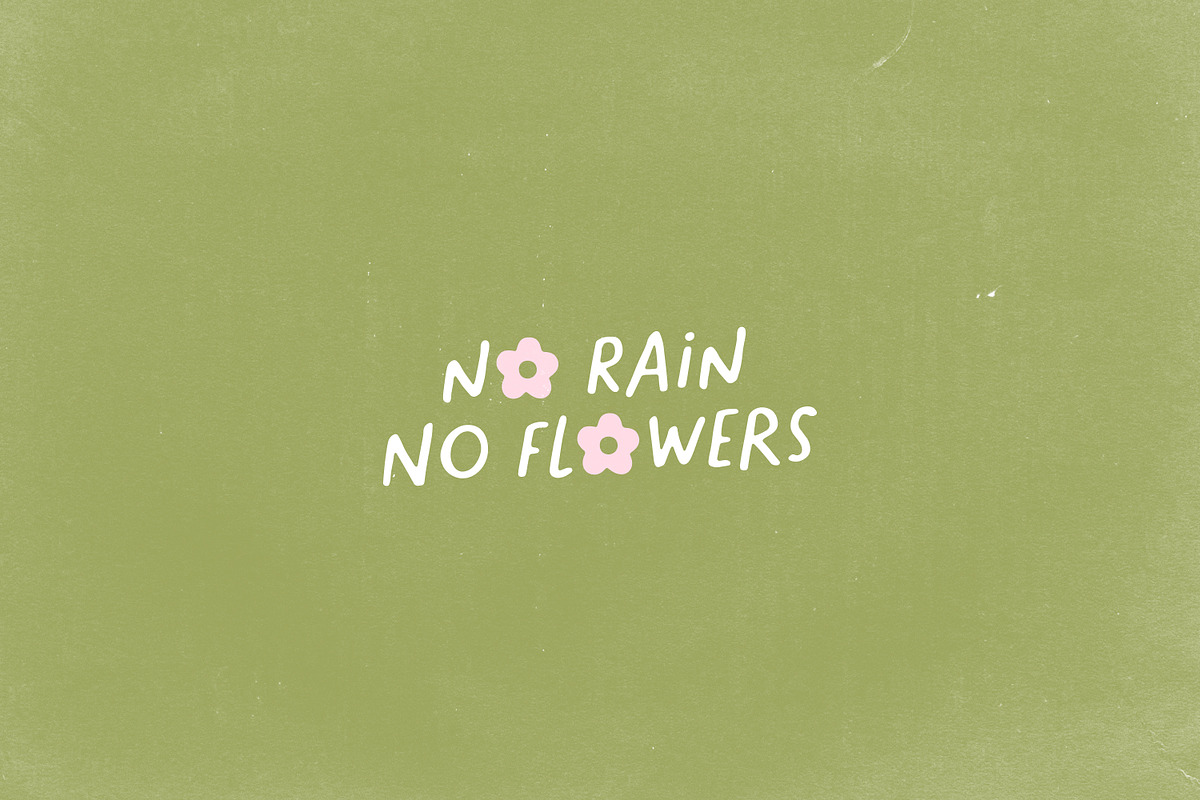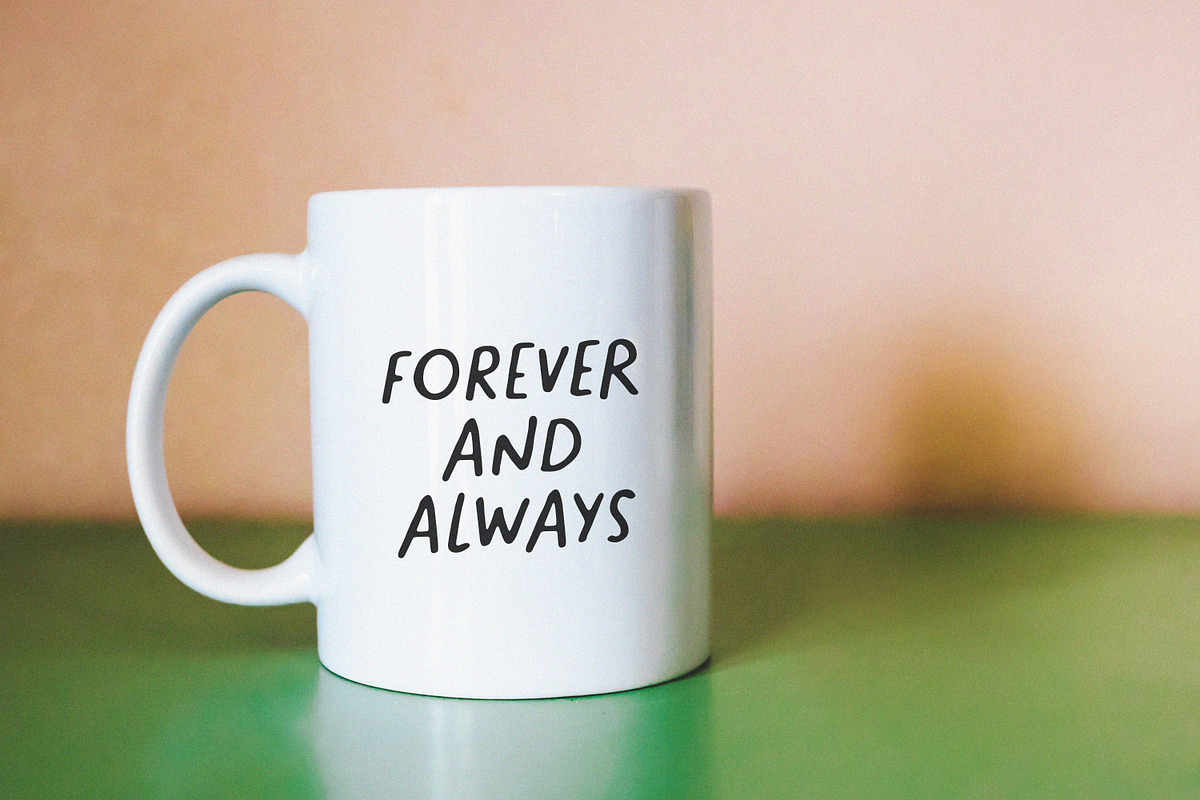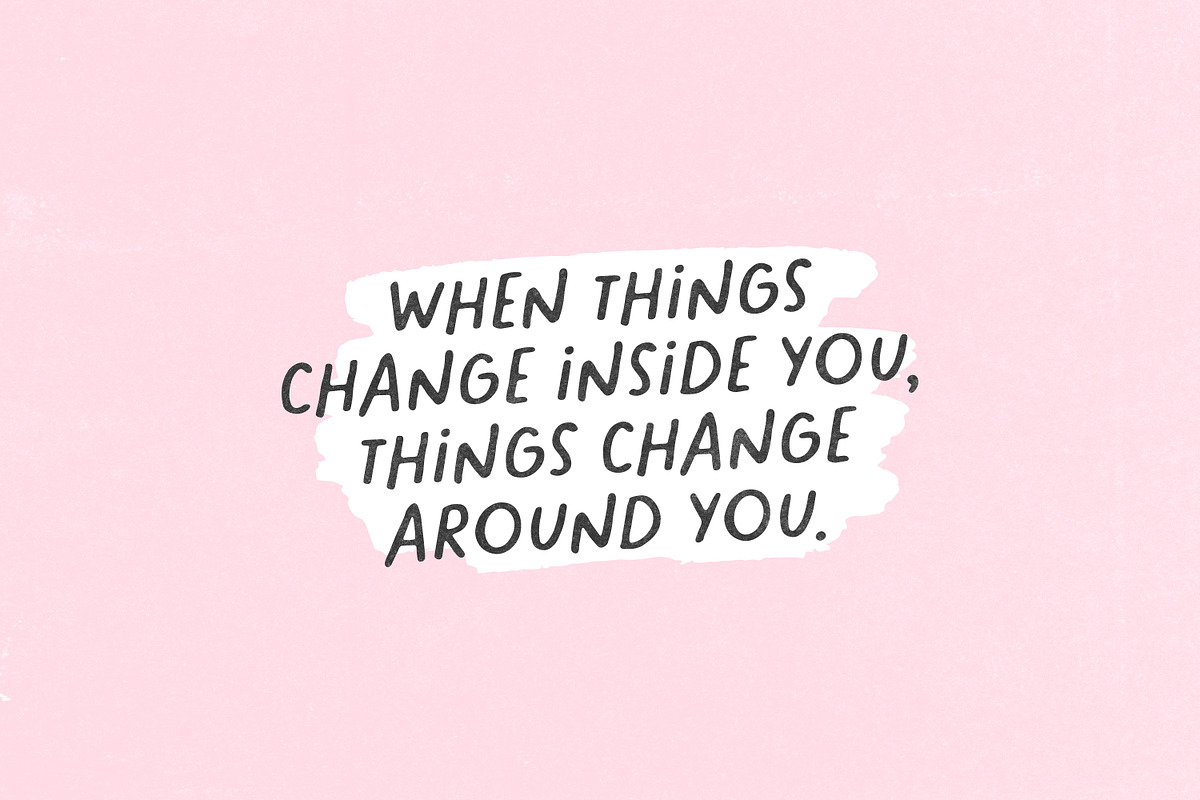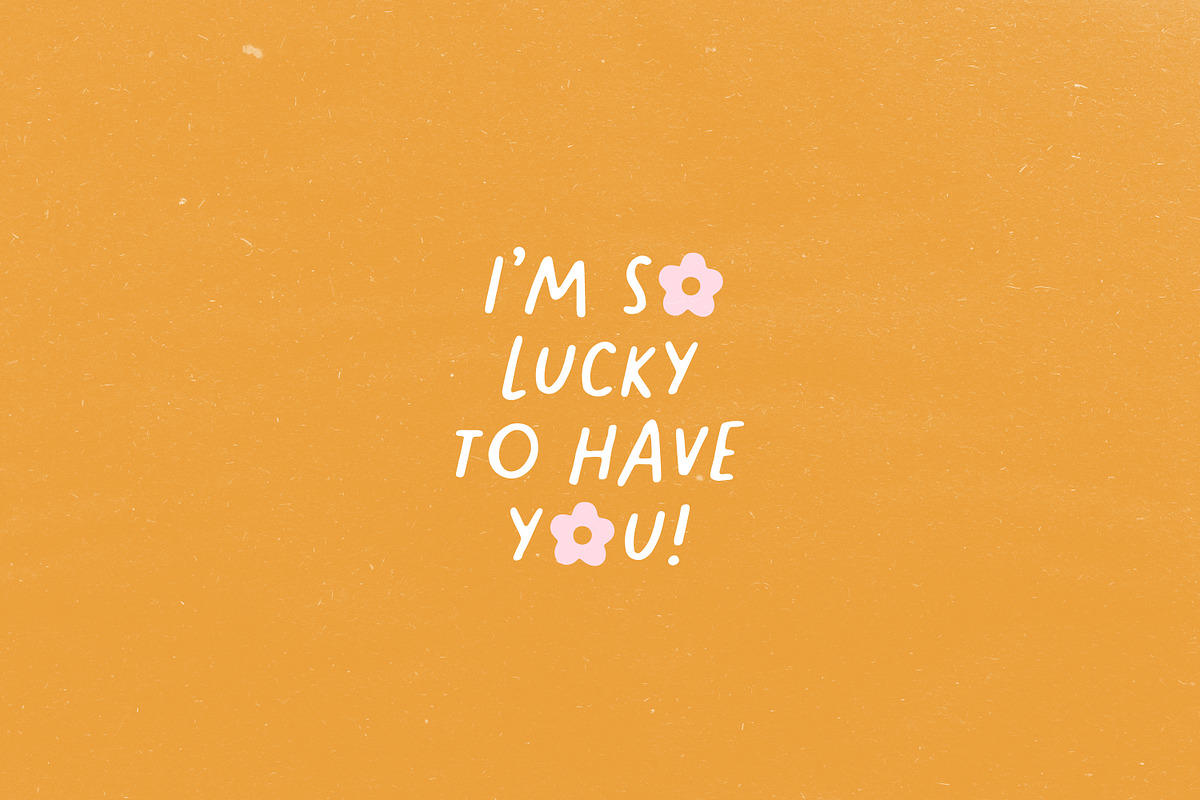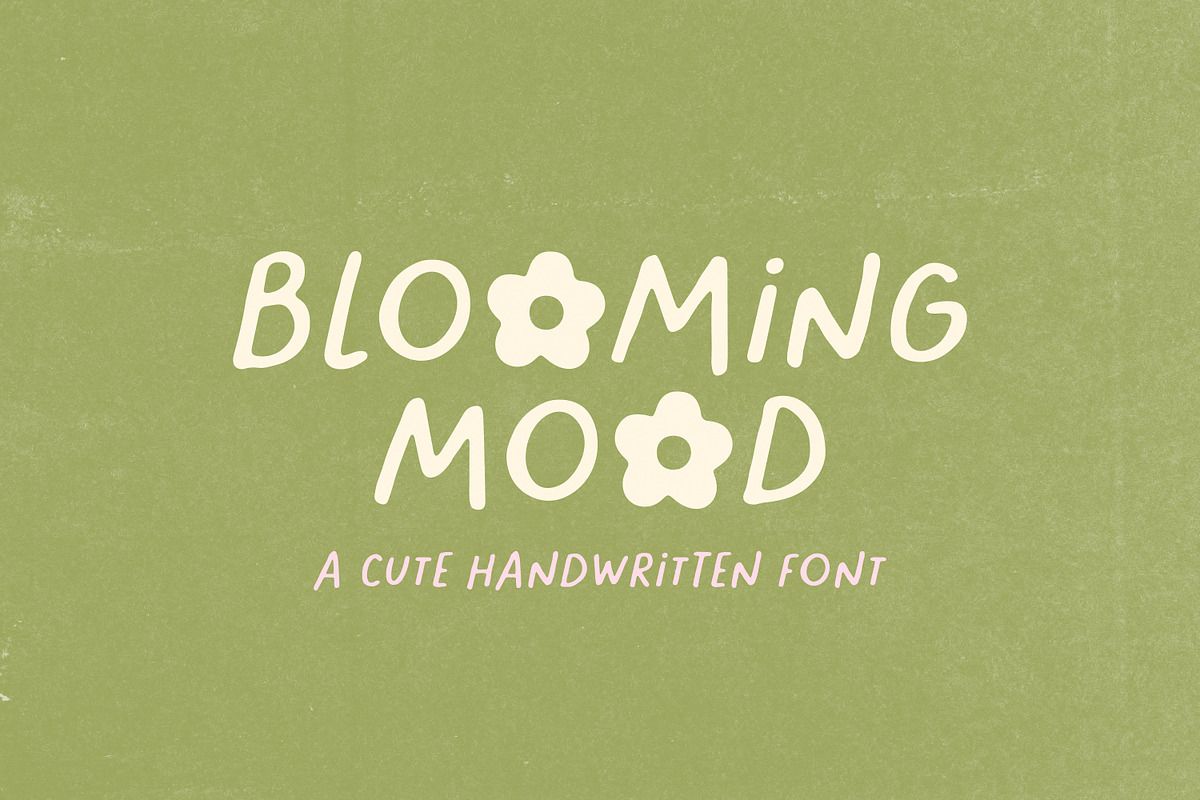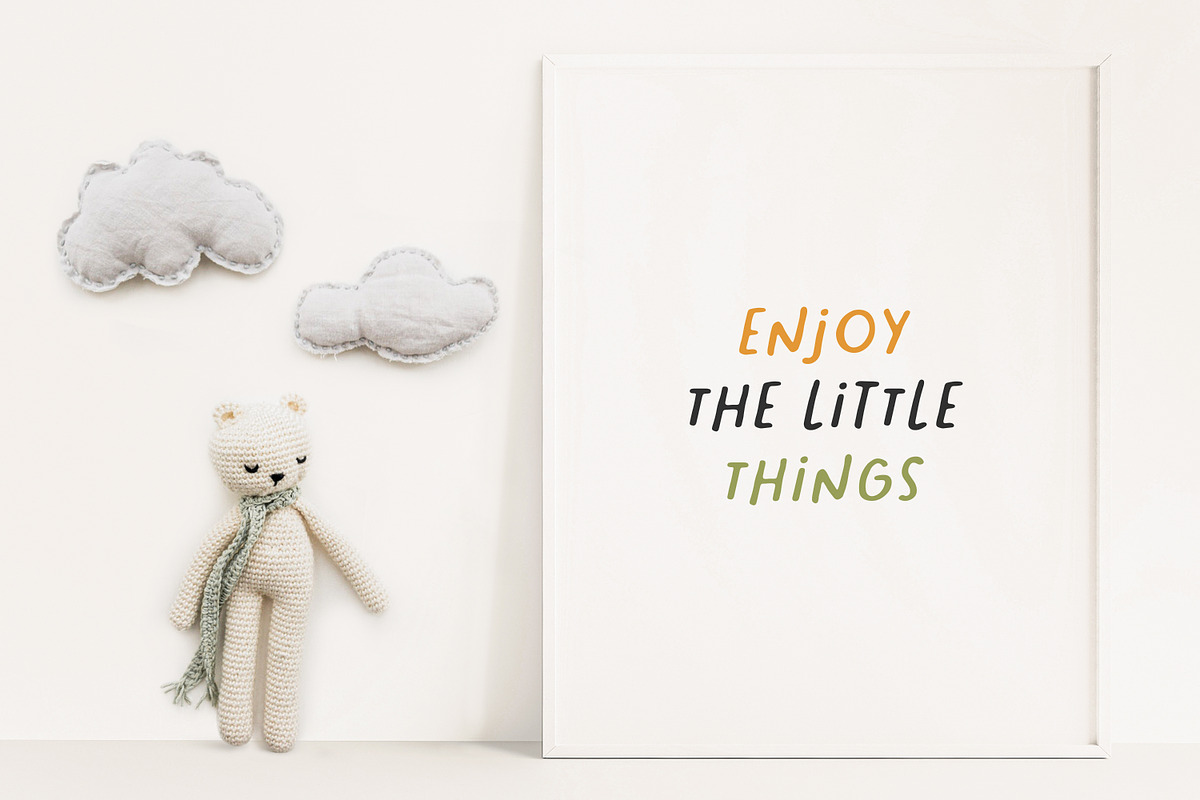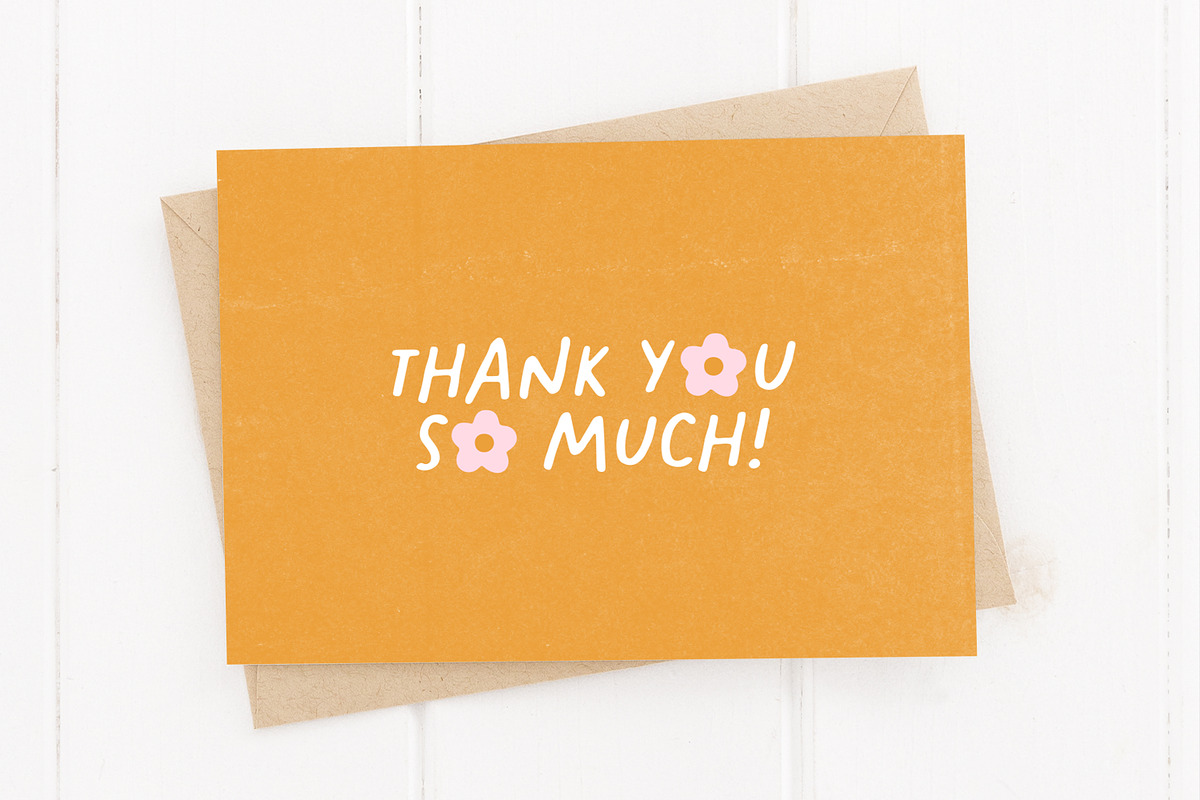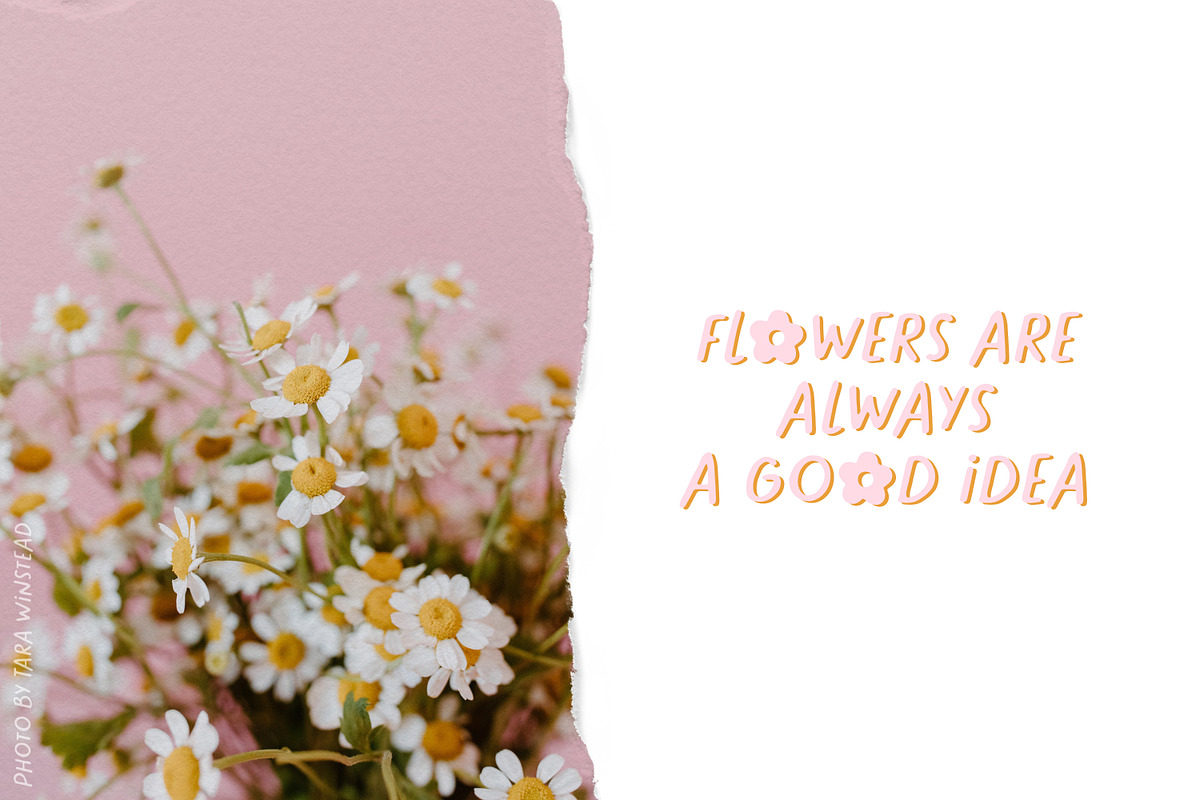
Blooming Mood - Cute Font
Blooming Mood is a cute handwritten font with summer vibes.
Perfect for sweet designs, logos, branding, packaging, apparel, cards, posters, quotes, social media posts, stickers, and more.